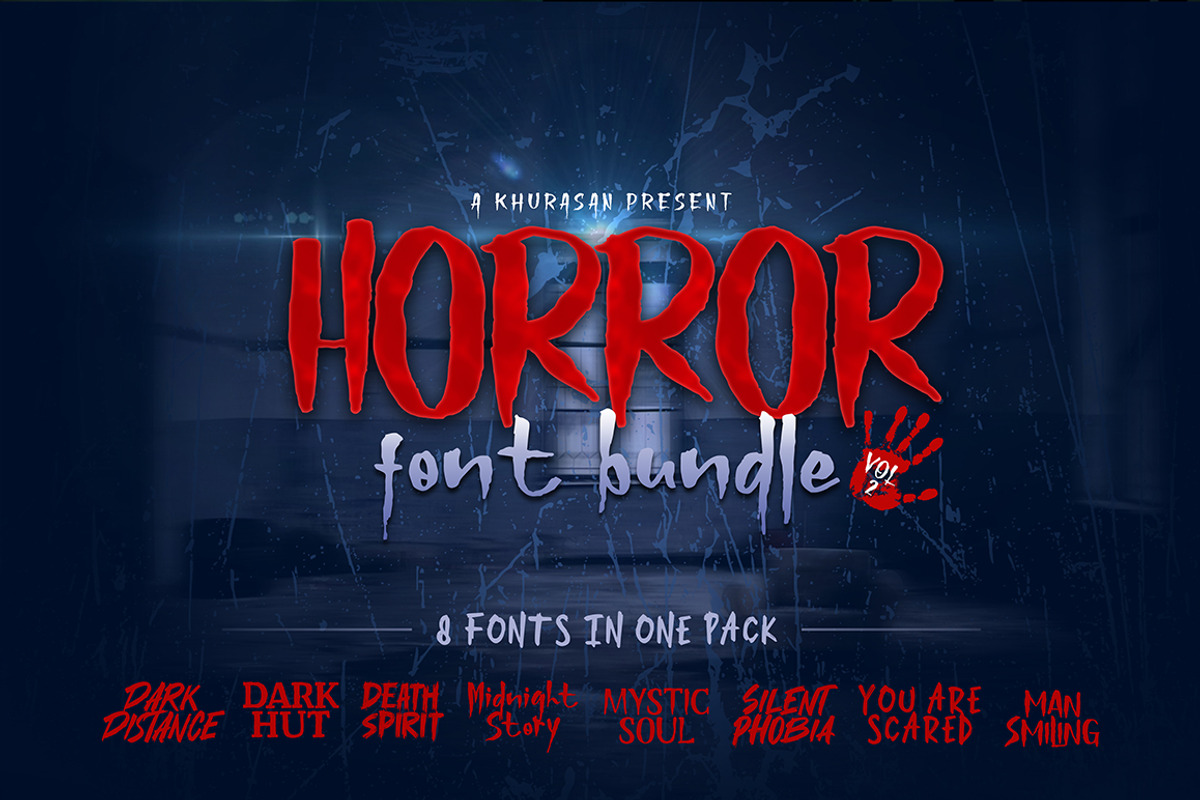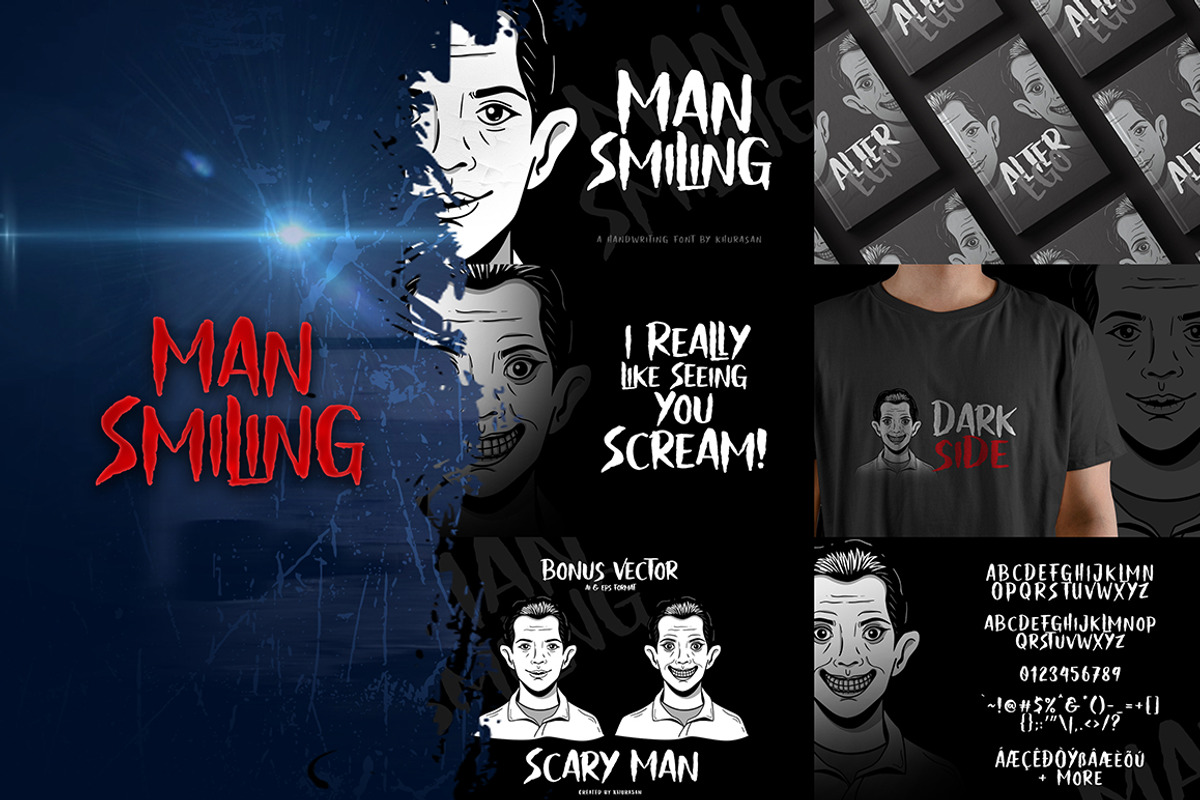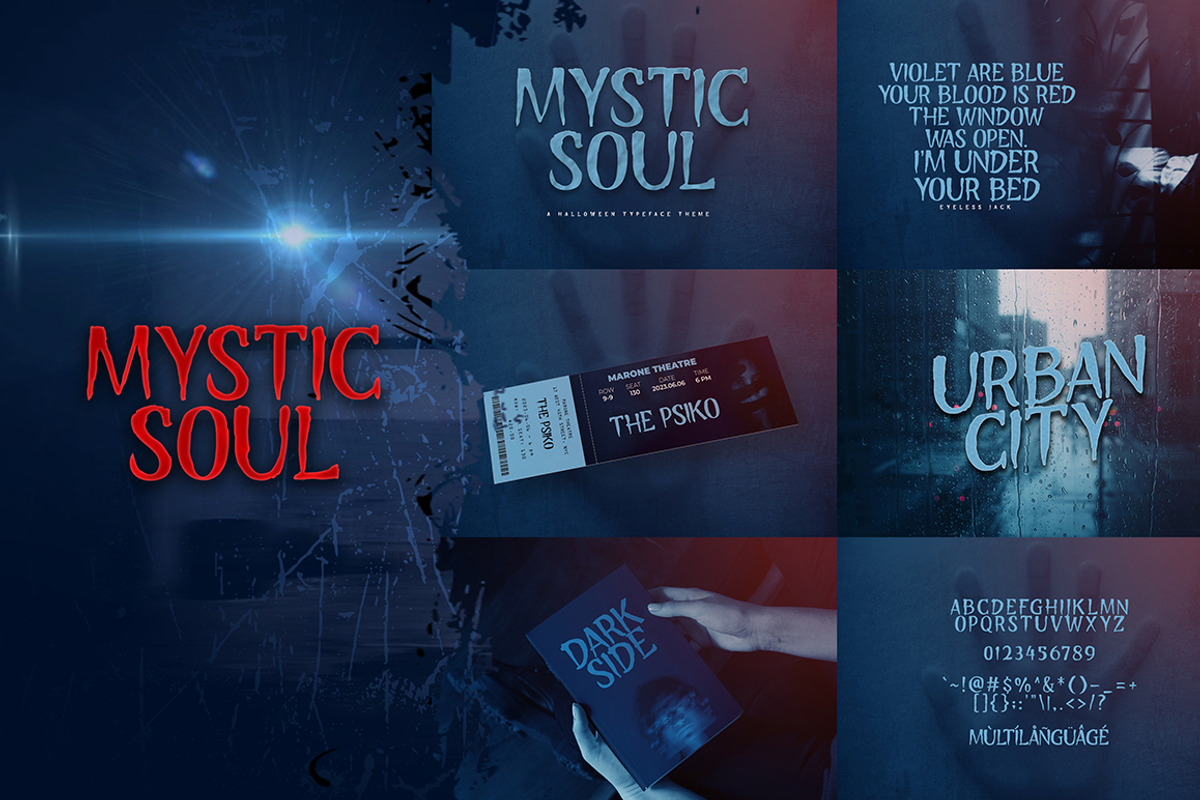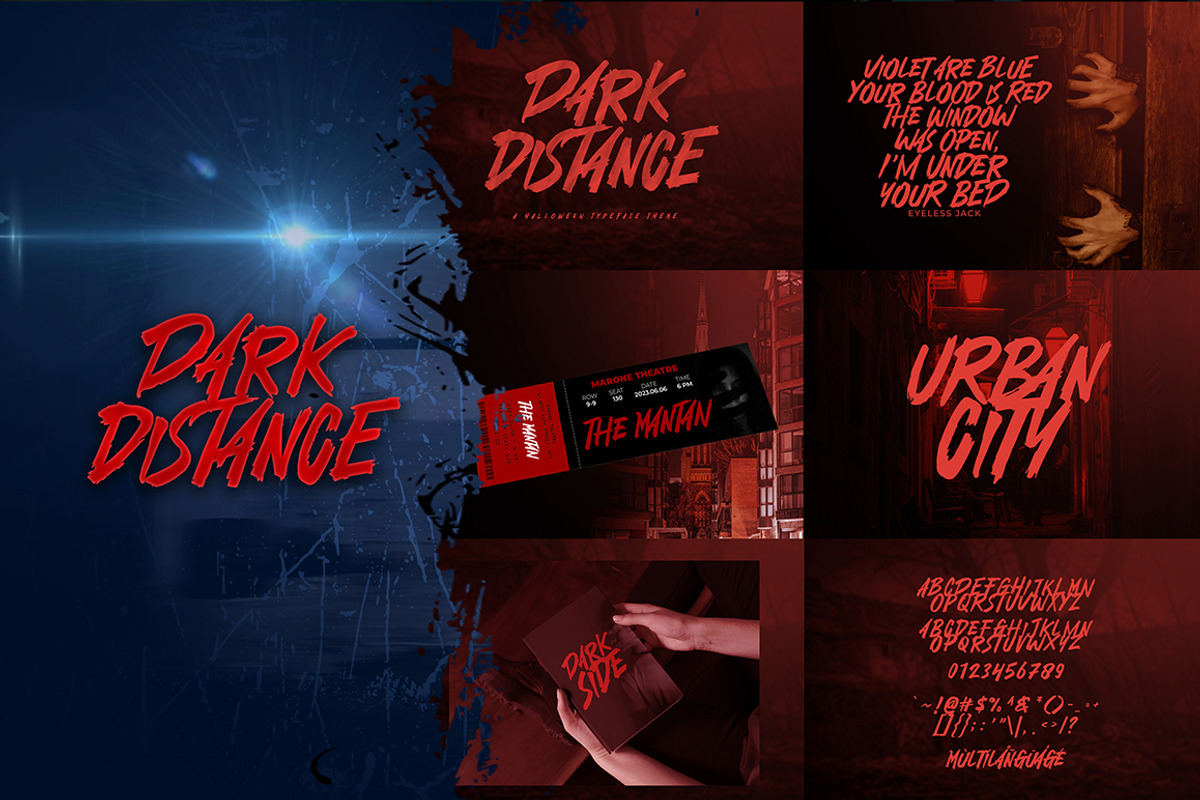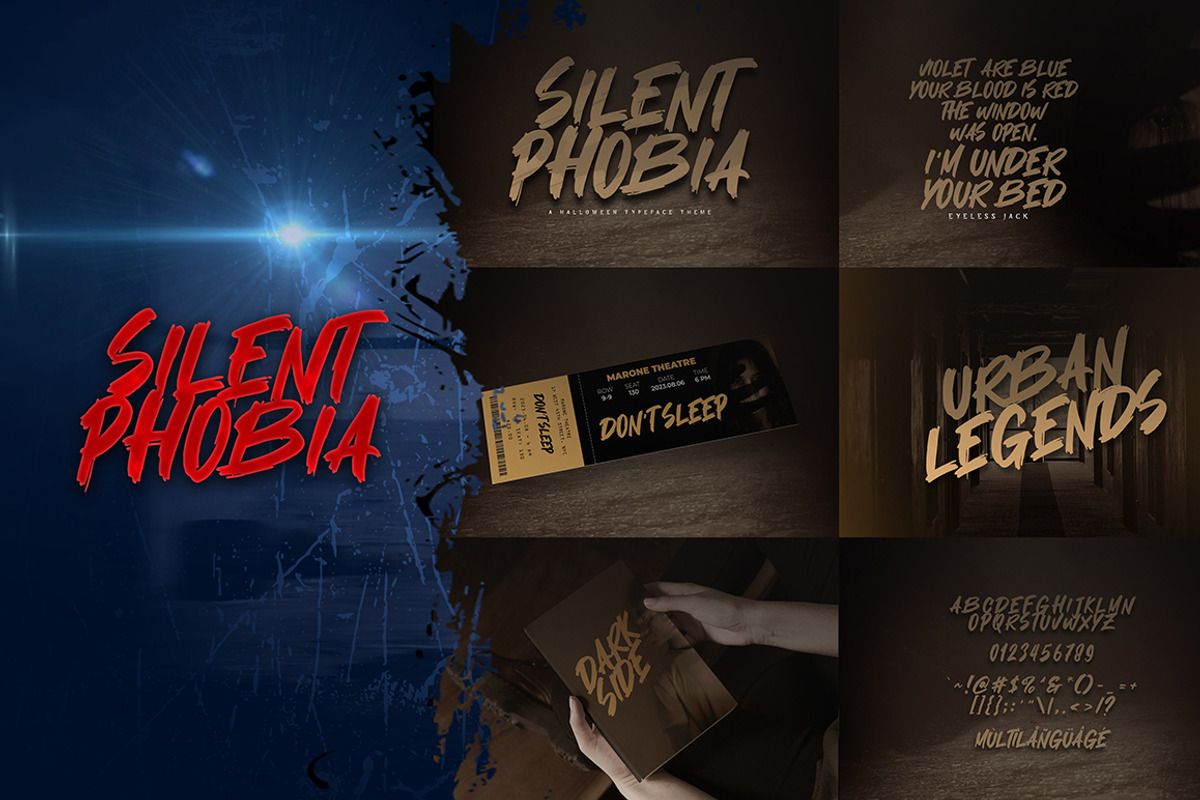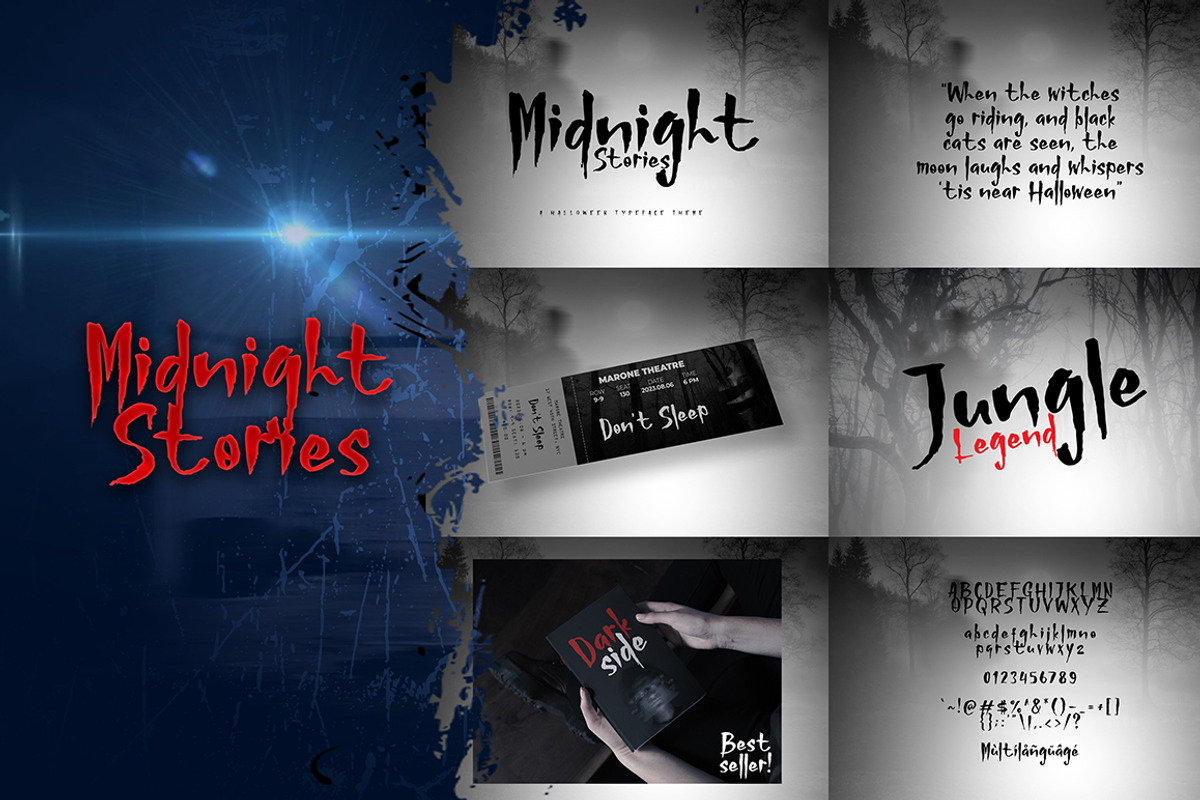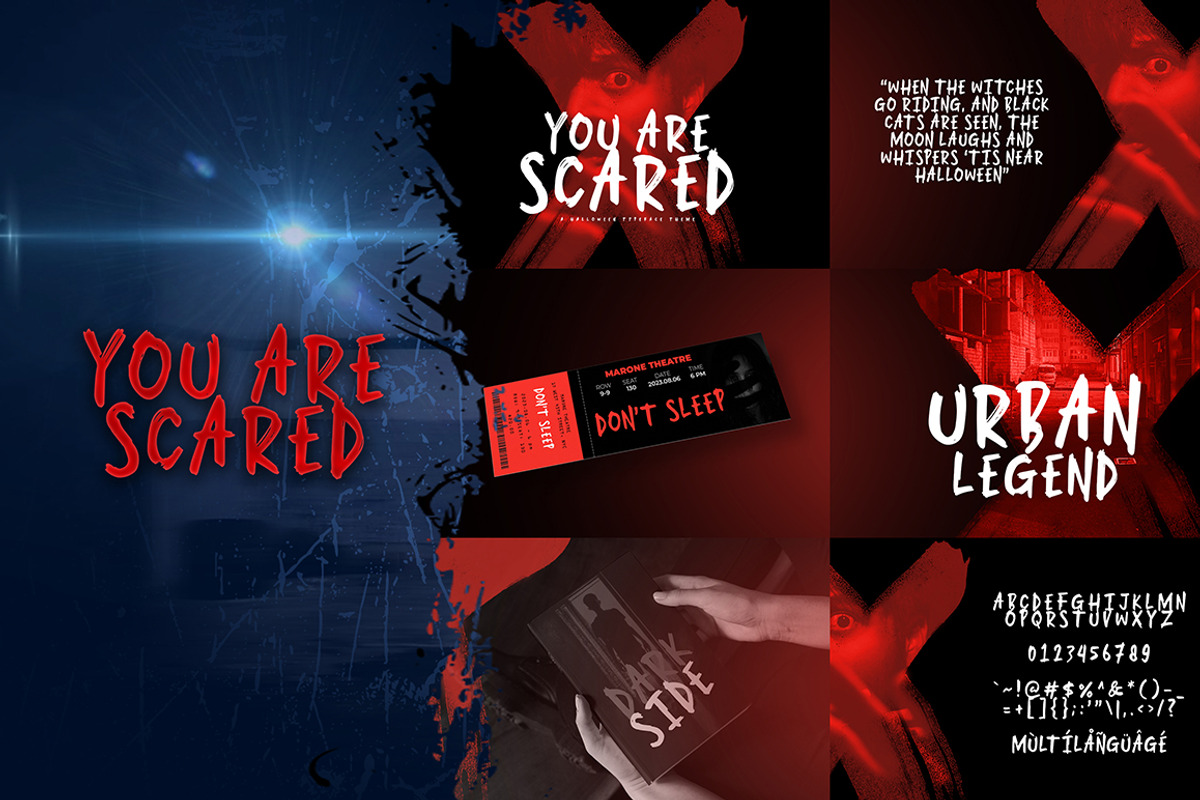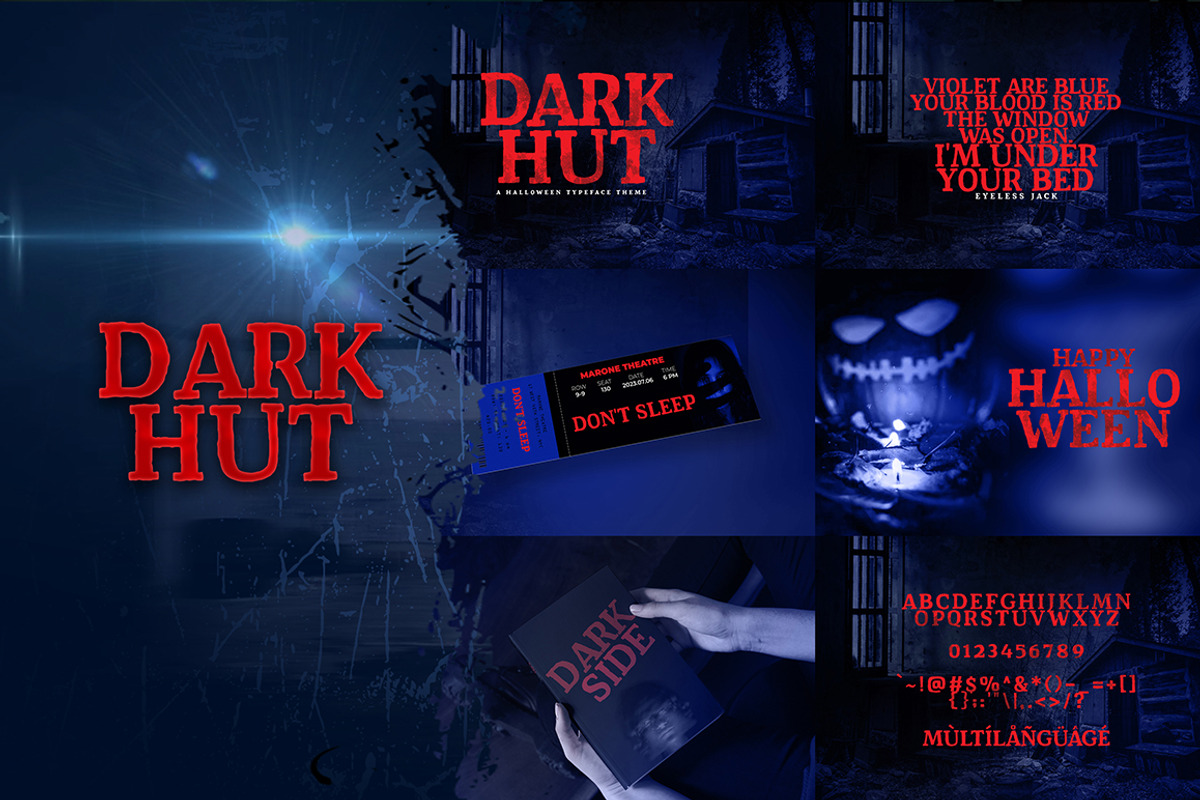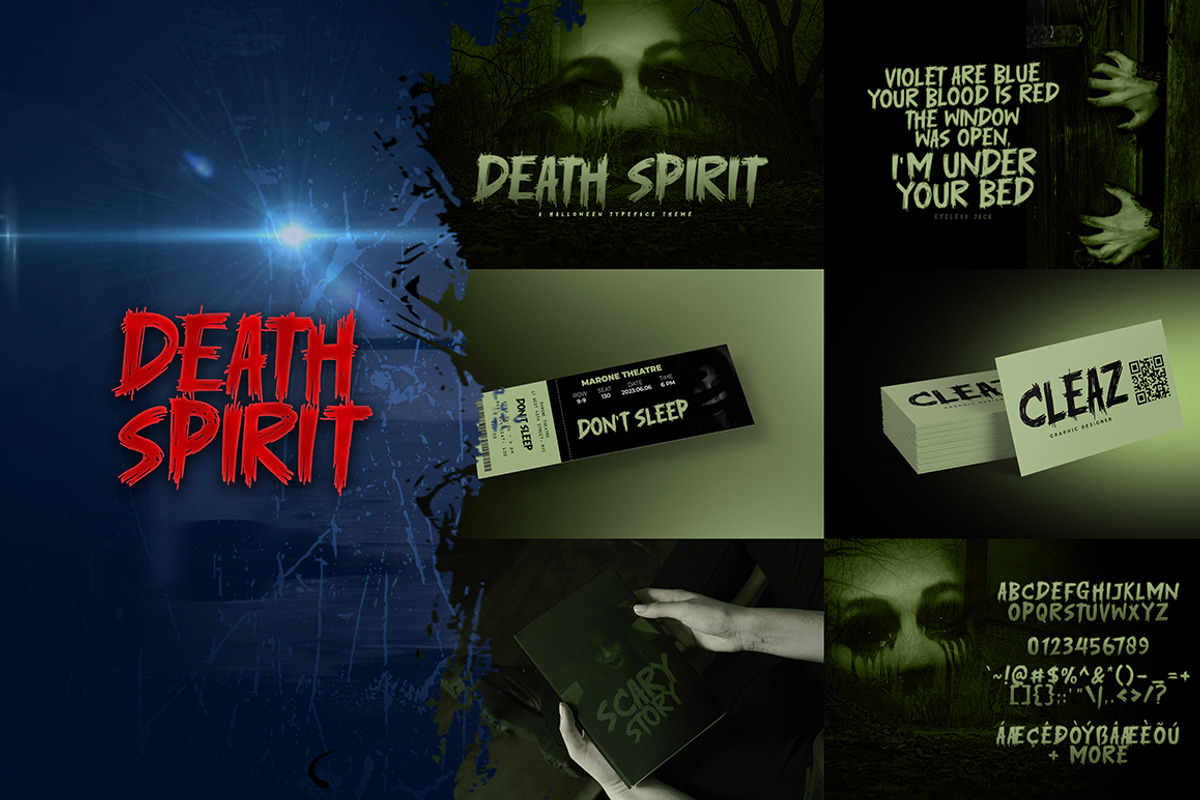
Horror Font Bundle V2
The Horror Font Bundle v2 is here! Packed with 8 font horror theme only $16. This font bundle contains 8 high quality horror, decorative, scary, and gothic fonts with unique variation styles. The Horror Font is perfect for your horror projects, such as: Movie Poster, Lettering on Cover Books, Album music cover, Logo Brand, and much more.
Font Includes :
- Dark Distance
- Dark Hut
- Death Spirit
- Man Smiling
- Midnight Stories
- Mystic Soul
- Silent Phobia
- You Are Scared